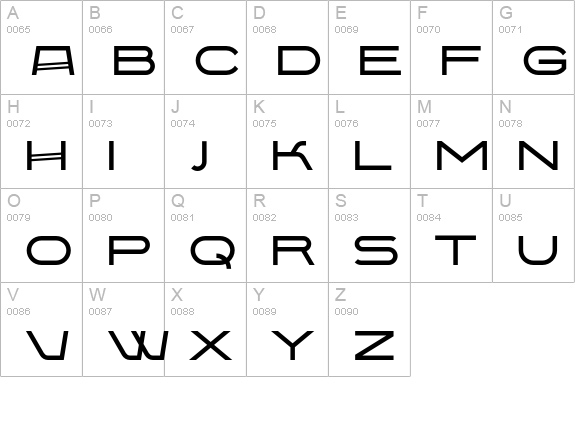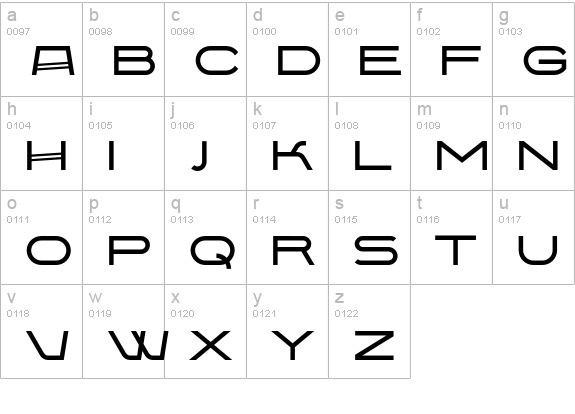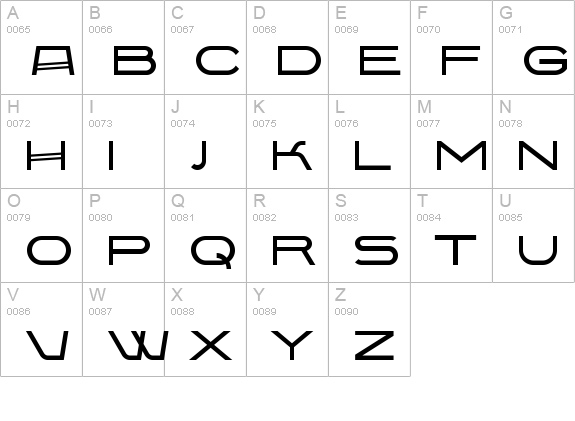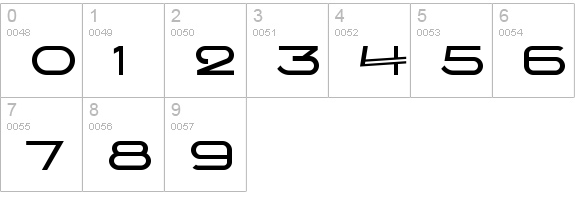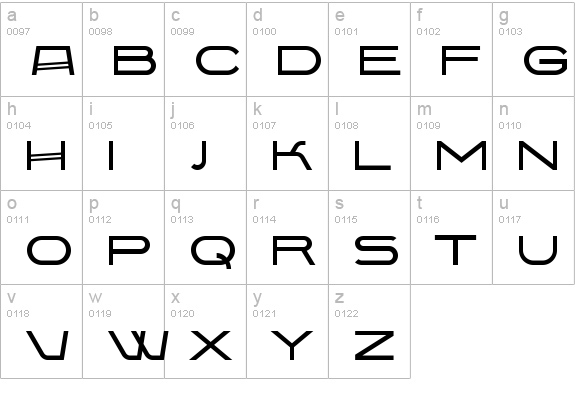
Introducing PT Babaev Cyrillic, a captivating and versatile font that seamlessly blends tradition with modernity. This font effortlessly captures the essence of Cyrillic typography, making it perfect for a wide range of creative projects. Designed with meticulous attention to detail, PT Babaev Cyrillic showcases a harmonious balance between elegance and legibility. Each letter is intricately crafted, exuding a sense of sophistication that will elevate any design. From headlines to body text, this font is a true workhorse, delivering a professional and polished look. One of the most remarkable aspects of PT Babaev Cyrillic is that it is available for free. Yes, you read that right! This exceptional font can be freely downloaded at FontsMarket.com, making it accessible to designers, enthusiasts, and anyone seeking to enhance their creative endeavors without breaking the bank. With its extensive character set, PT Babaev Cyrillic supports multiple languages, making it an excellent choice for international projects. Whether you're designing a website, creating branding materials, or crafting eye-catching advertisements, this font will provide the perfect typographic foundation to bring your visions to life. The versatility of PT Babaev Cyrillic shines through in its ability to adapt to various design styles. Its refined curves and clean lines make it equally suitable for both contemporary and classic designs. From sleek minimalist compositions to intricate vintage-inspired layouts, this font effortlessly adapts, adding a touch of sophistication and uniqueness to every project. In addition to its aesthetic appeal, PT Babaev Cyrillic is also highly functional. Its well-thought-out letterforms ensure excellent legibility at any size, making it ideal for both print and digital mediums. Whether it's a large-scale banner or a small paragraph of text, this font ensures your message is conveyed with clarity and impact. So why wait? Unlock the creative potential of PT Babaev Cyrillic and add a touch of elegance to your designs today. Remember, this remarkable font is freely available to download at FontsMarket.com, allowing you to explore countless design possibilities without any cost limitations. Embrace the beauty of Cyrillic typography and let PT Babaev Cyrillic take your designs to new heights.